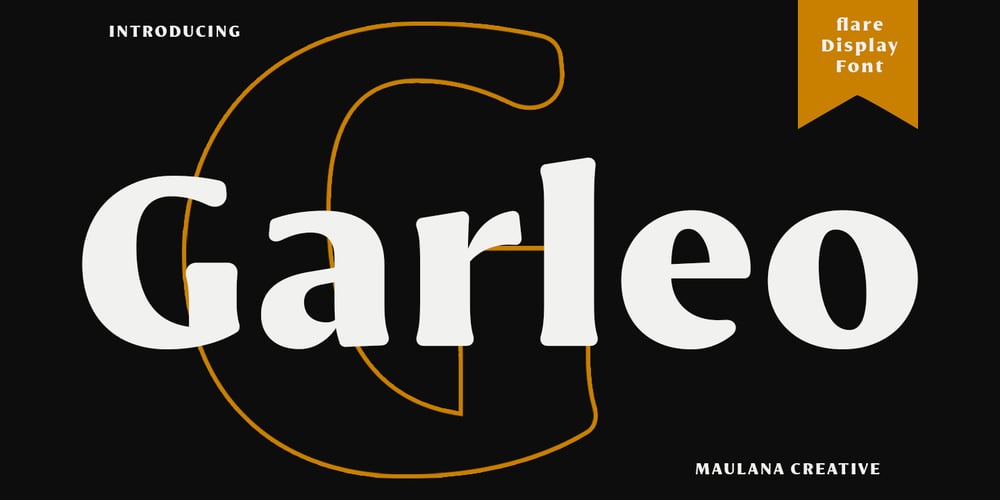
MC Garleo Font Family was designed by Gilang Maulana and published by Maulana Creative. MC Garleo contains 1 styles and family package options. Garleo is a round flare serif Display font. Bold stroke, fun character with a bit of ligatures and alternates. To give you an extra creative work. Garleo font support multilingual more than 100+ language. This font is good for logo design, Social media, Movie Titles, Books Titles, a short text even a long text letter and good for your secondary text font with script or serif. Make a stunning work with Garleo font. Cheers, Maulana Creative